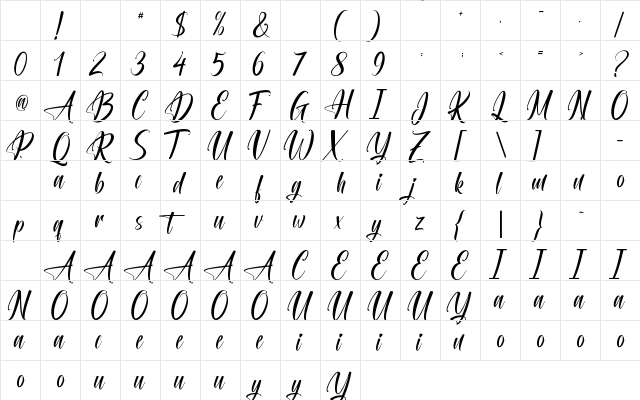
Complete Eternal Monarch Regular glyph index. Displaying only characters natively supported by Eternal Monarch Regular font.
Eternal Monarch is a composed and adaptable typeface that performs quietly and consistently across a wide range of design contexts.
Who designed the Eternal Monarch Regular font?